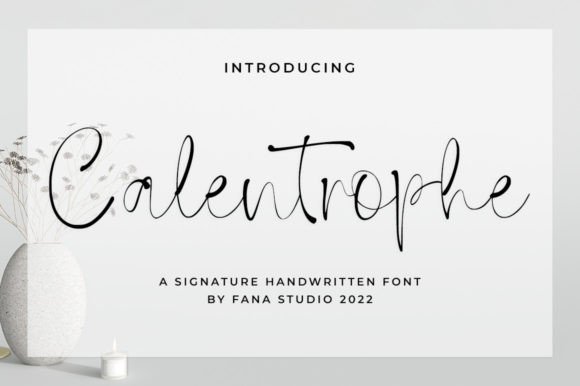
Unleash the Enchantment of Calentrophe: A Dazzling Script Font that Captivates
In the realm of typography, there exists a font of unparalleled beauty and elegance, a font that possesses the power to transform your digital creations into captivating works of art. Allow us to introduce Calentrophe, a breathtaking script font meticulously crafted by the skilled artisans at Fanastudio. This font, with its intricate details and sweeping curves, is a testament to the enduring allure of the written word.
Calentrophe belongs to the esteemed family of script fonts, renowned for their flowing, organic forms that evoke a sense of timeless sophistication. Its Latin script heritage imbues it with an air of tradition and authenticity, making it the perfect choice for projects that demand a touch of classic elegance.
Whether you're a seasoned designer seeking to expand your typographic arsenal or a passionate hobbyist yearning to elevate your creative pursuits, Calentrophe stands ready to ignite your imagination and elevate your designs to new heights. Its versatility knows no bounds; it effortlessly adapts to a myriad of projects, from personal invitations and heartfelt letters to professional presentations and eye-catching marketing materials.
Picture this: a wedding invitation adorned with Calentrophe's graceful lines, conveying the joy and romance of the occasion with every letter. Or envision a heartfelt letter penned in Calentrophe's elegant script, its curves mirroring the ebb and flow of your emotions. The possibilities are endless, limited only by the boundaries of your creativity.
With Calentrophe as your trusty companion, you'll discover a newfound appreciation for the art of typography. Its meticulously crafted characters, each a masterpiece in its own right, will breathe life into your designs, captivating your audience with their undeniable charm.
So, why settle for ordinary fonts when you can embrace the extraordinary? Embrace Calentrophe, and embark on a typographic journey that will leave an enduring impression on all who encounter your creations.